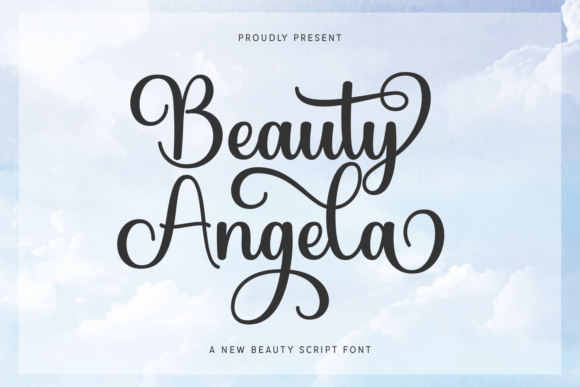
Introducing Beauty Angela Font: Elevate Your Designs with Elegance and Sophistication
In the world of typography, a beautiful font can make all the difference in creating stunning designs that capture attention and convey elegance. Beauty Angela is a gorgeous script font that has been making waves in the design community, and for good reason. This exquisite font combines the classic charm of swashes with a modern and sophisticated look, making it perfect for a wide range of applications.
What Makes Beauty Angela Font So Special?
Beauty Angela is a true showstopper, boasting flowing curves and intricate details that add a touch of luxury to any design. Its elegant swashes and refined lines make it an ideal choice for wedding invitations, logos, branding, and upscale stationery. Whether you’re a designer looking to create a lasting impression or a crafter seeking to add a personal touch to your projects, Beauty Angela is sure to impress.
Versatility at Its Best: Print and Digital Formats
One of the standout features of Beauty Angela is its versatility. This stunning font shines in both print and digital formats, making it perfect for a wide range of applications. Use it to create breathtaking wedding invitations, elegant greeting cards, or sophisticated social media graphics. Its modern and sophisticated look ensures that your designs will stand out, whether they’re viewed on screen or in print.
Beauty Angela is a dream come true for designers and crafters alike. Its refined and graceful touch makes it easy to add a touch of elegance to any project. Whether you’re creating logos, branding materials, or stationery, this font is sure to elevate your work to the next level. Its intricate details and flowing curves also make it perfect for creative projects, such as scrapbooking, card making, and mixed media art.
Why Choose Beauty Angela Font?
So, what sets Beauty Angela apart from other fonts? Here are just a few reasons why designers and crafters are falling in love with this stunning script font:
- Elegant swashes: Add a touch of sophistication to your designs with Beauty Angela’s beautiful swashes.
- Modern and sophisticated look: This font’s modern and refined lines ensure that your designs will look fresh and contemporary.
- Versatility: Use Beauty Angela in both print and digital formats, from wedding invitations to social media graphics.
- Intricate details: Add a touch of luxury to your designs with the font’s intricate details and flowing curves.
Tips for Using Beauty Angela Font
To get the most out of Beauty Angela, here are a few tips to keep in mind:
- Pair it with a sans-serif font: Create a striking contrast by pairing Beauty Angela with a clean and modern sans-serif font.
- Experiment with colors: This font looks stunning in a range of colors, from metallic ink to pastel hues.
- Use it sparingly: Beauty Angela is a statement font, so use it sparingly to add a touch of elegance to your designs.
Beauty Angela Font is a true gem in the world of typography. Its elegant swashes, modern and sophisticated look, and versatility make it a must-have for designers and crafters alike. Whether you’re creating wedding invitations, logos, branding materials, or social media graphics, this stunning script font is sure to elevate your work to the next level. So why wait? Discover the beauty of Beauty Angela Font today and add a refined and graceful touch to your designs.